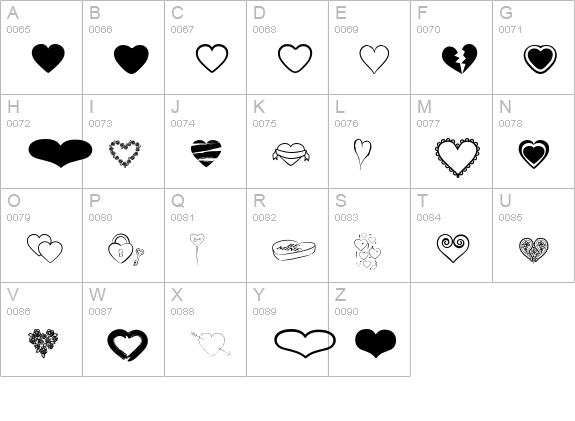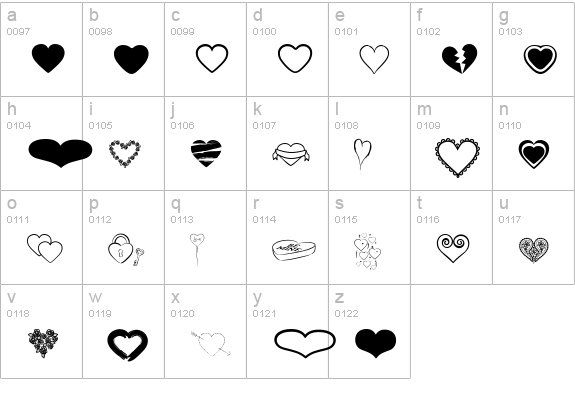
heARTs Font Details
heARTs font is a stunning and artistic typeface that will add a touch of elegance and creativity to your designs. With its unique and intricately crafted letterforms, this font is perfect for any project that requires a dash of romance and sophistication. heARTs font is not only visually appealing but also highly versatile, making it suitable for a wide range of applications. Whether you are designing wedding invitations, crafting logos, or creating stunning typography art, this font will effortlessly elevate your work to new heights. One of the best things about heARTs font is that it is completely free. Yes, you read that right! This beautiful font is freely available to download at FontsMarket.com. So, not only do you get access to a top-quality typeface, but you also get it without spending a dime. Downloading heARTs font from FontsMarket.com is quick and easy. Simply visit the website, search for heARTs font, and click on the download button. Within seconds, you will have the font ready to use in your favorite design software. So, why wait? Enhance your designs with the elegance and charm of heARTs font. Download it for free at FontsMarket.com and let your creativity soar.